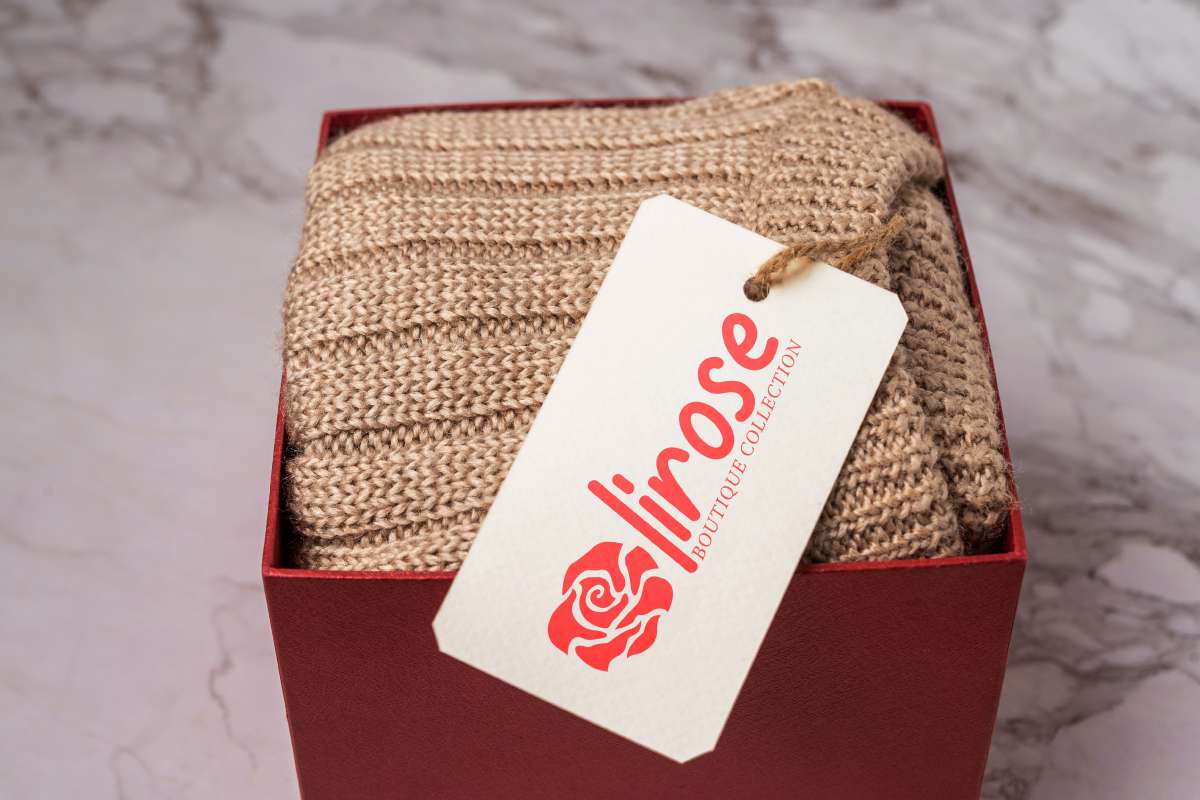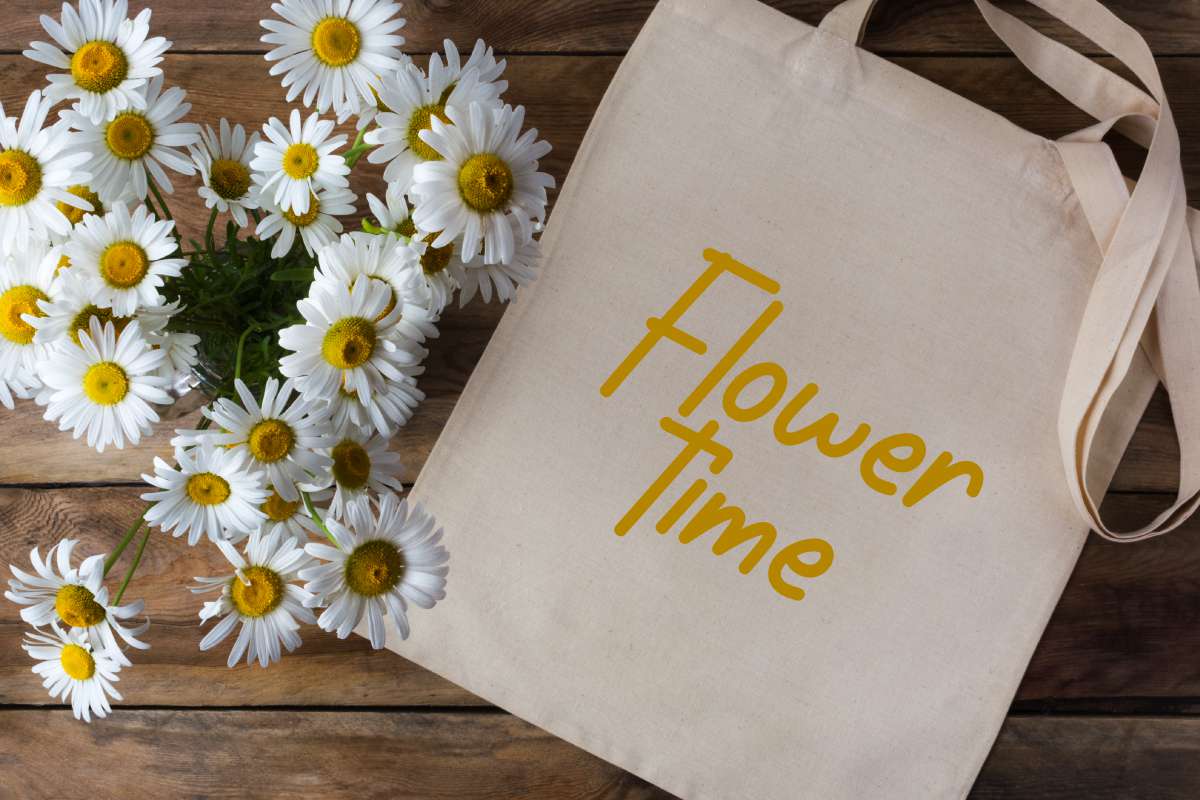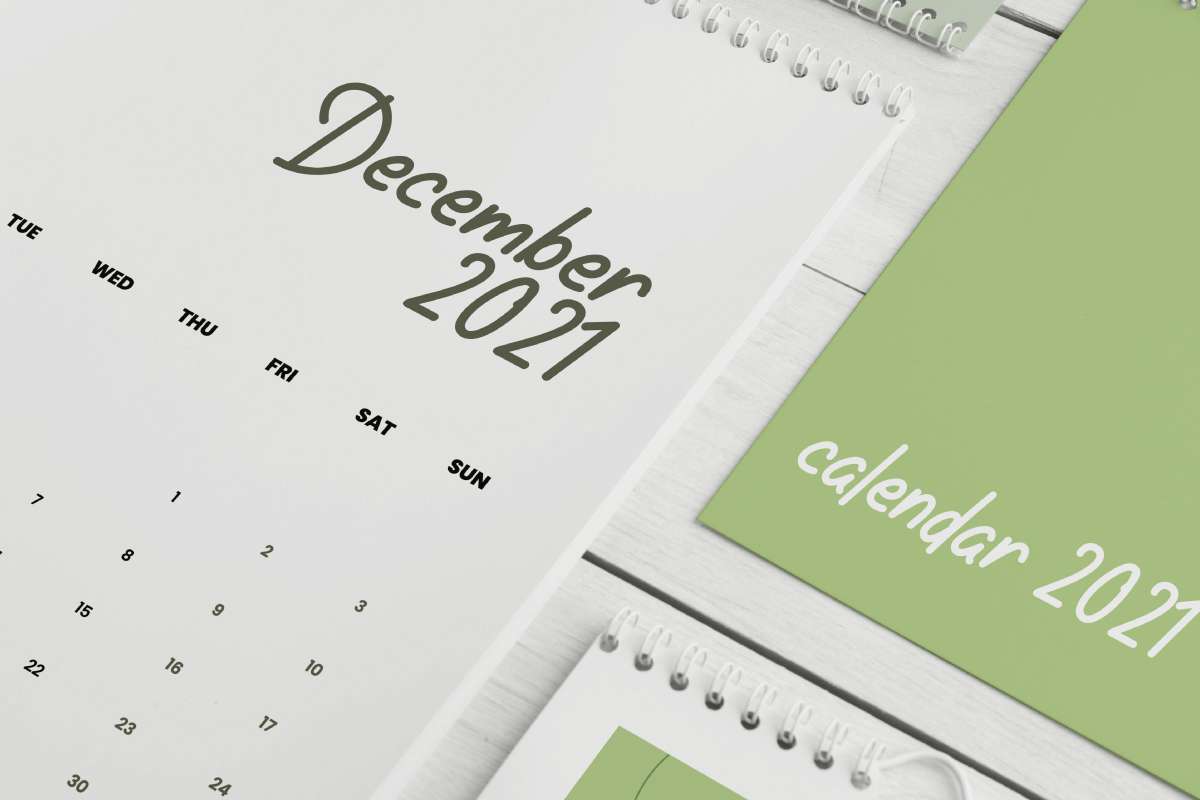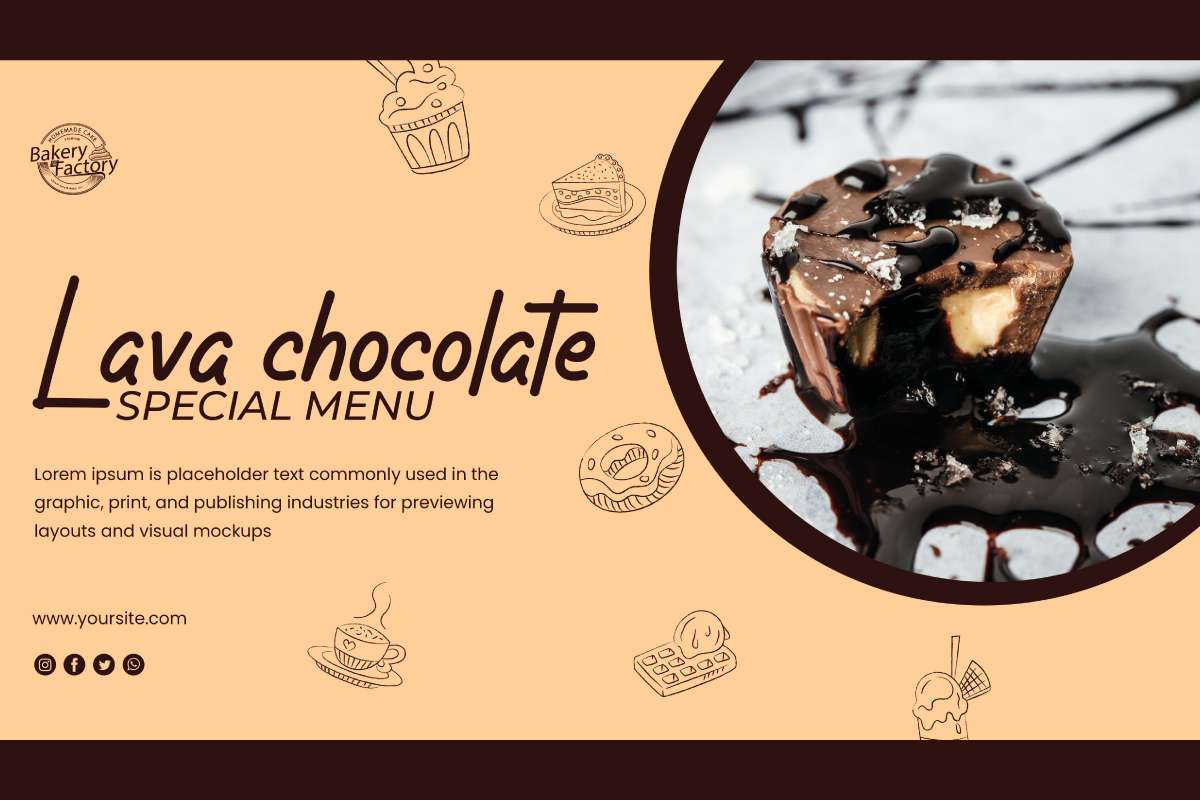
Harella Font
Harella Handwritten Font
It’s a monoline handwriting display font by NoahType. This font is crafted carefully in every its single line, created to look as close to a natural handwritten script so that it can create the perfect combination on each glyph. When we make this font, we really want to create a touch that is so free-flowing that it gives a natural impression on its use later. This simple handwriting font is for anyone who are needing of minimalist and casual designs.
The fonts come with full set of Uppercase and Lowercase Basic Characters, Numerals and Punctuation. Also it contains some ligature characters to perfectly make natural handwriting look that add more aesthetic fonts to perfect your extraordinary project. Harella Font will be awesome for coffee shop, invitations, movie, children book, signage, title etc